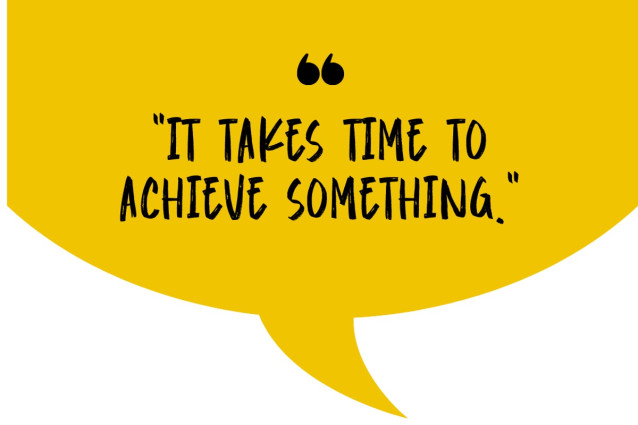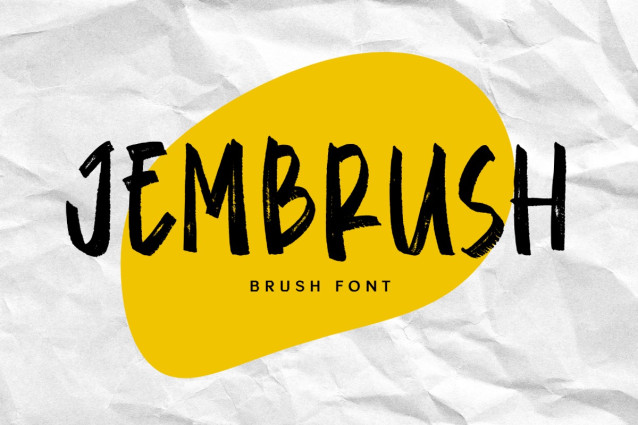
Jembrush Brush Font
Jembrush Brush Font is a bold and expressive handbrush font that brings raw energy and artistic flair to your designs. With its textured strokes and natural brush feel, Jembrush is perfect for posters, music covers, branding, apparel, or anything that needs a striking and handmade touch. Each letter is crafted to convey movement and personality, giving your text a truly authentic and dynamic appearance.